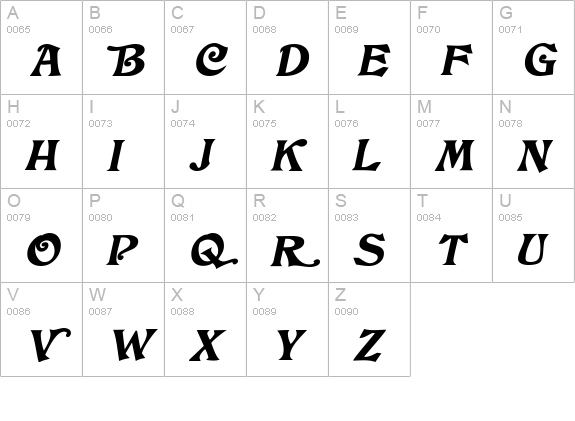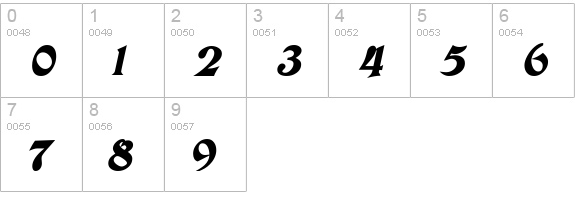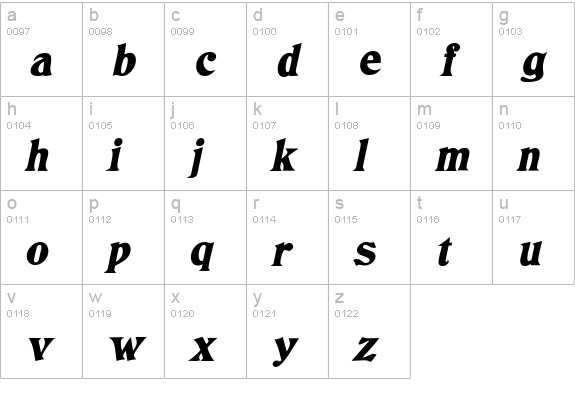
Tringle Bold Italic Font Details
Tringle Bold Italic is a strong, high-contrast, italic variant in the Tringle typeface family \xE2\x80\x94 well suited to headlines, attention-grabbing titles, and strong calls-to-action.
Tringle Bold Italic font is a stunning display typeface that effortlessly combines strength and elegance. Its bold and slanted design exudes confidence and sophistication, making it perfect for headlines, titles, and logos that demand attention. The unique letterforms of Tringle Bold Italic font feature sharp angles and subtle curves, resulting in a visually striking and modern aesthetic. Each character is meticulously crafted to ensure legibility and readability, even at smaller sizes. The bold weight of this font conveys a sense of power and authority, while the italic style adds a touch of flair and dynamism. Whether used in print or digital media, Tringle Bold Italic font brings a sense of professionalism and creativity to any design project. And the best part? Tringle Bold Italic font is available for free download at FontsMarket.com. This means that you can easily access this exceptional font without breaking the bank. Embrace the power of Tringle Bold Italic font and elevate your designs to new heights.